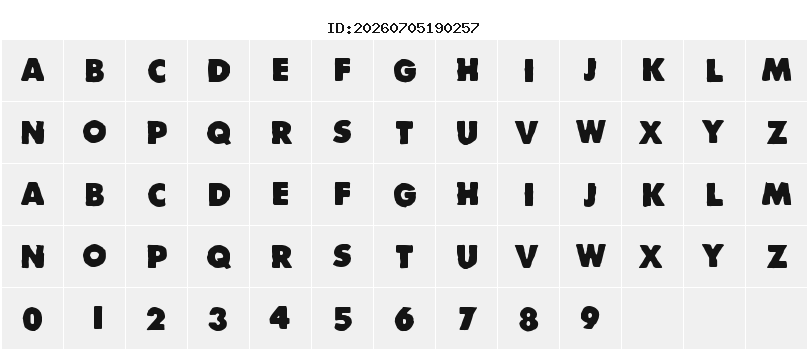
• Font Name: Divisible Invisible High
• Full Font Name: Divisible Invisible High
• Version: Version 1.00 December 23, 2015, initial release
About Divisible Invisible High.ttf
Divisible Invisible High.ttf is a modern, elegant sans-serif font designed for ultimate readability and visual harmony. Perfect for branding, headlines, web design, and print materials.